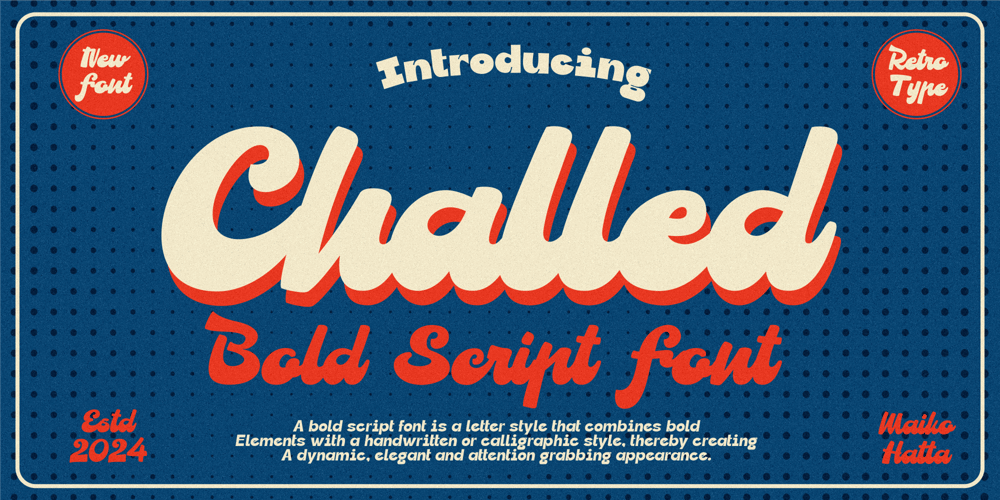
Challed Font Family was designed by Gilang Ternadho and published by Maikohatta. Challed contains 1 styles and family package options. Introducing our new product Challed – Bold Script FontChalled – is a very flexible choice and can be used in a variety of design contexts. Its ability to provide a clean, professional, contemporary look and its simplicity and visual appeal make this font good for use in the world of graphic design and modern typography.